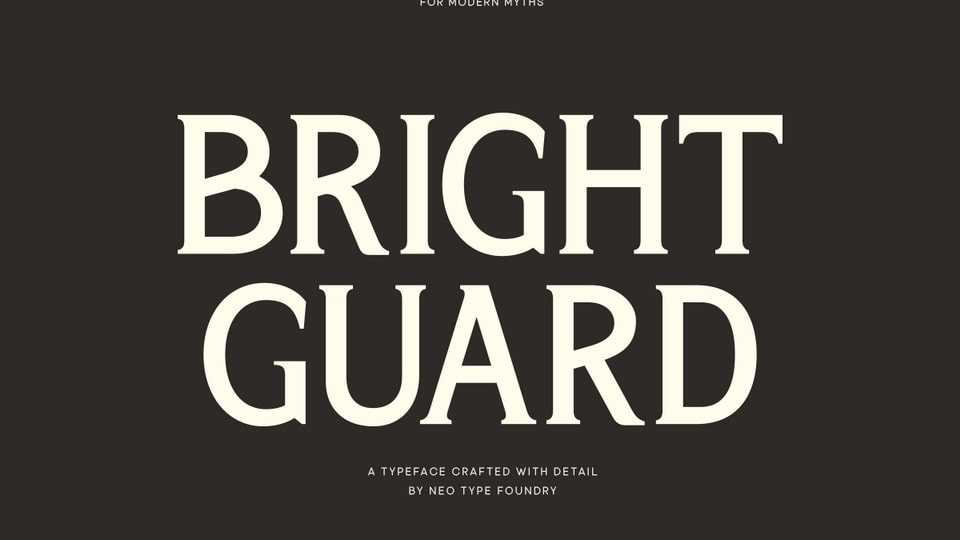
Download Bright Guard font, a bold and elegant serif display typeface crafted to command attention and inspired by classical proportions and modern strength.
Designer: Neotype